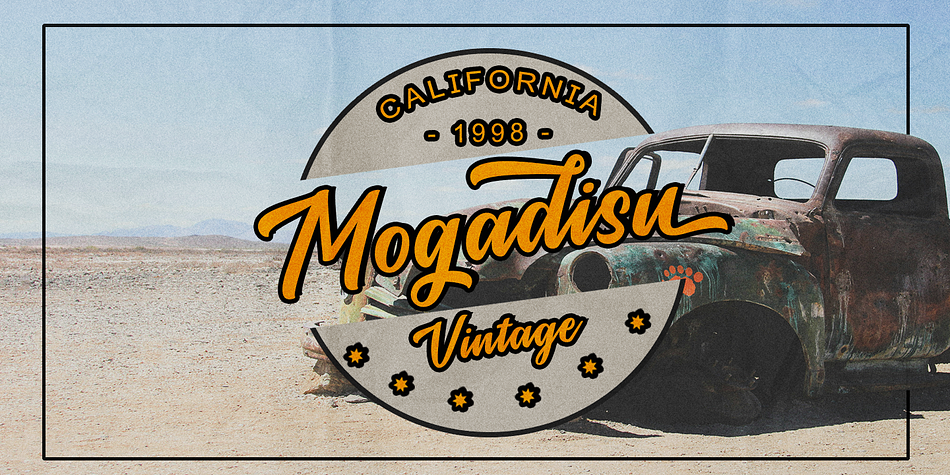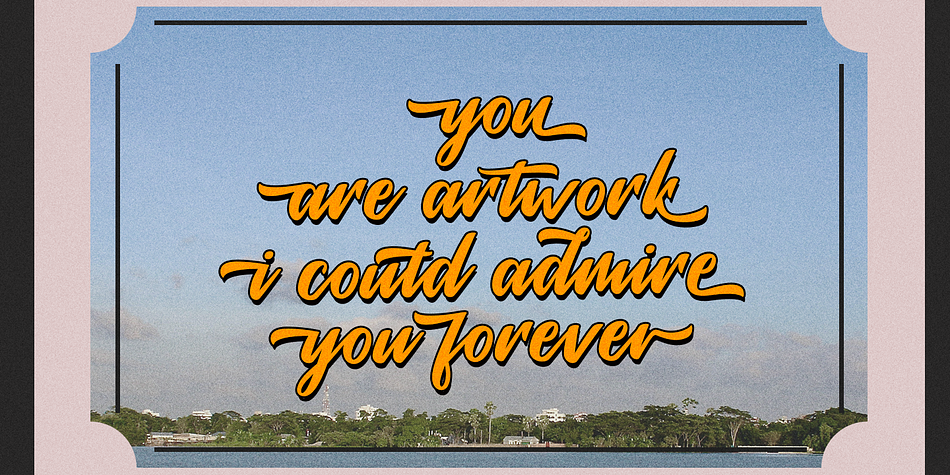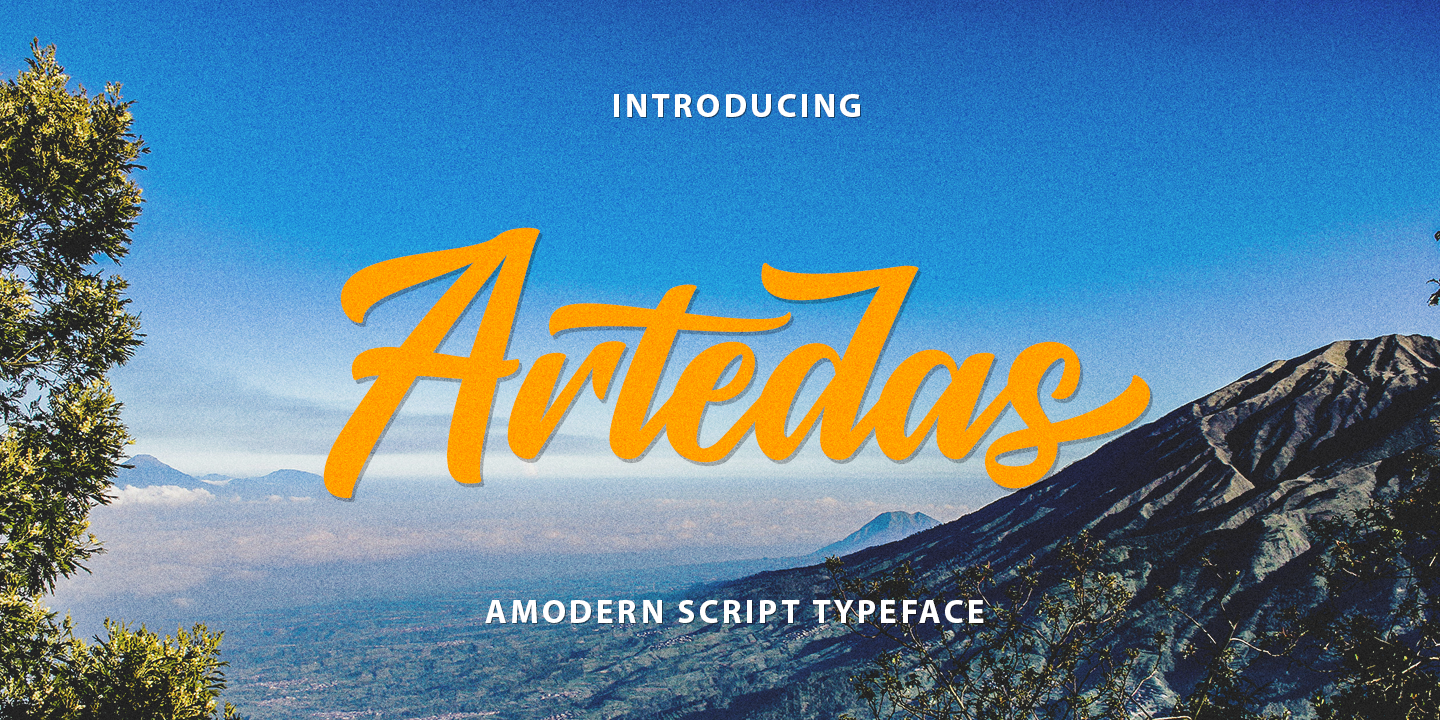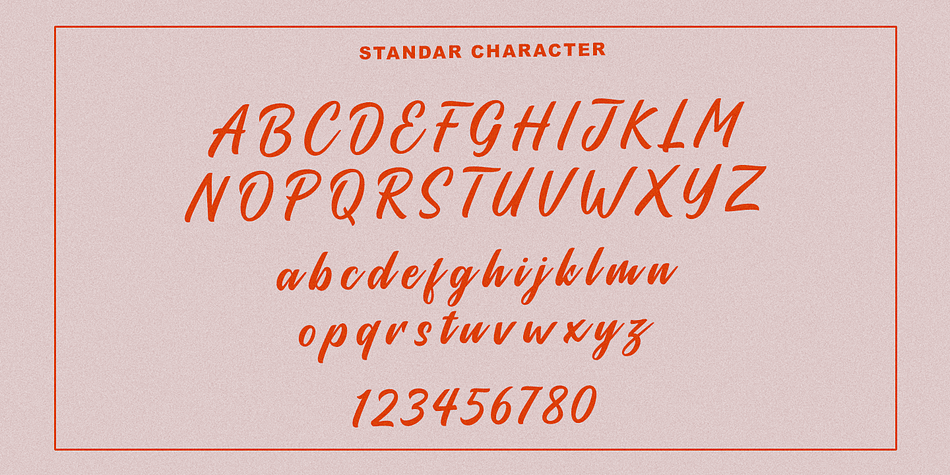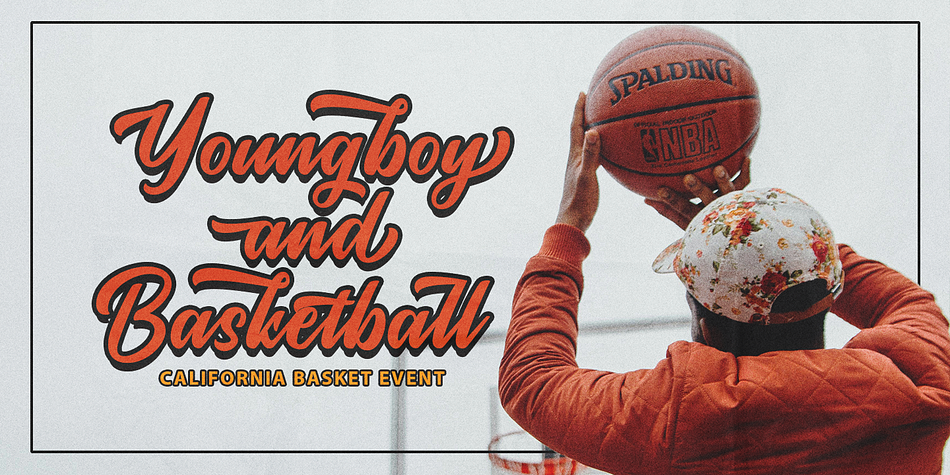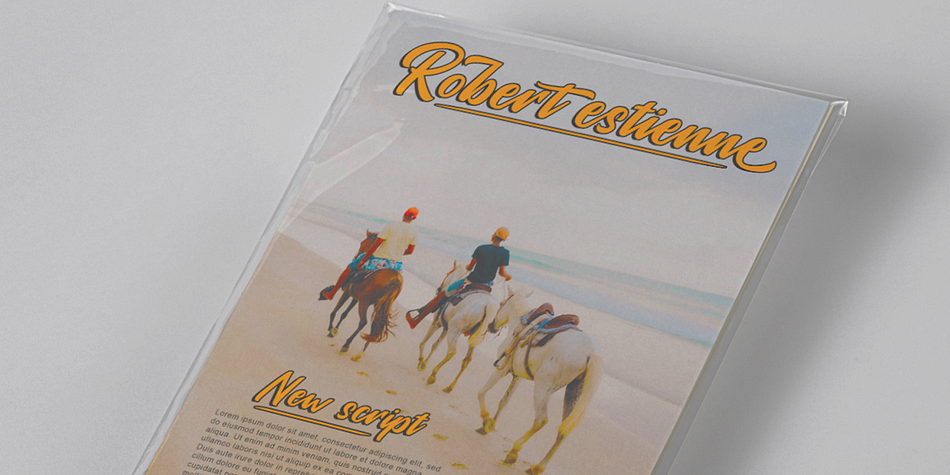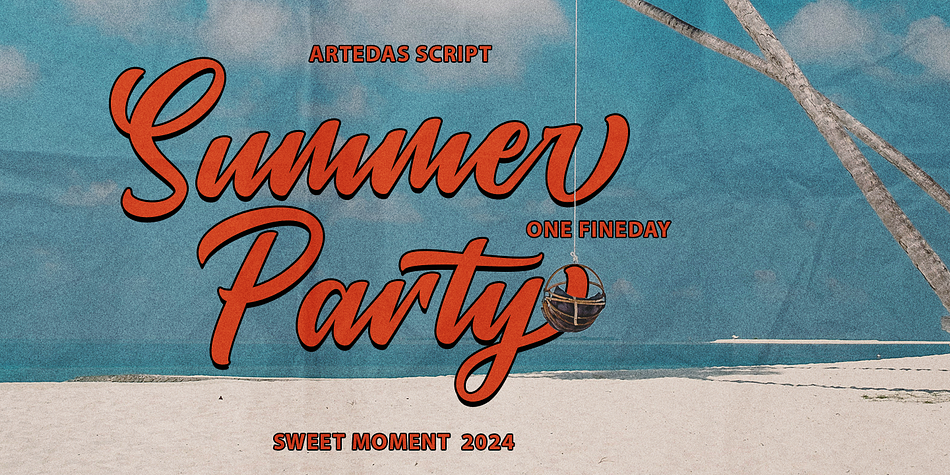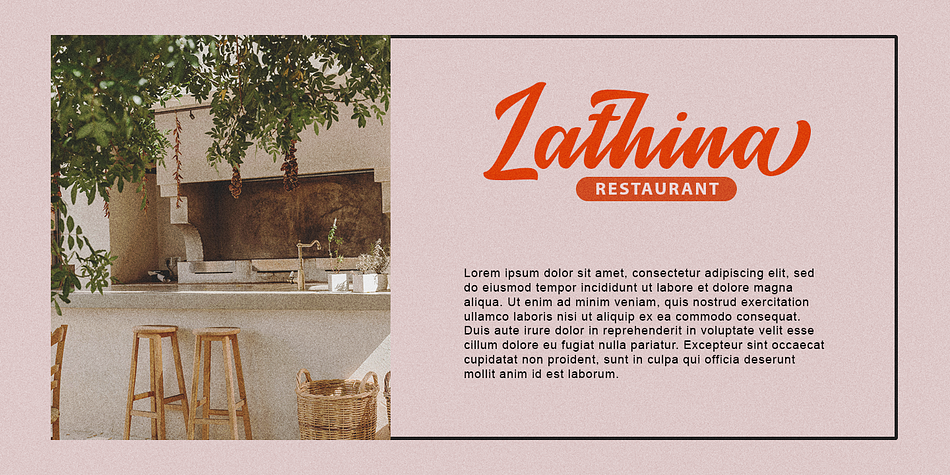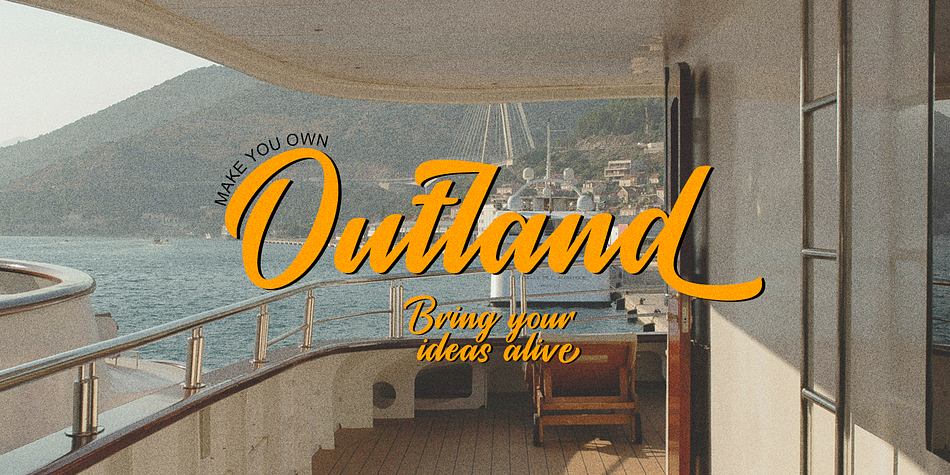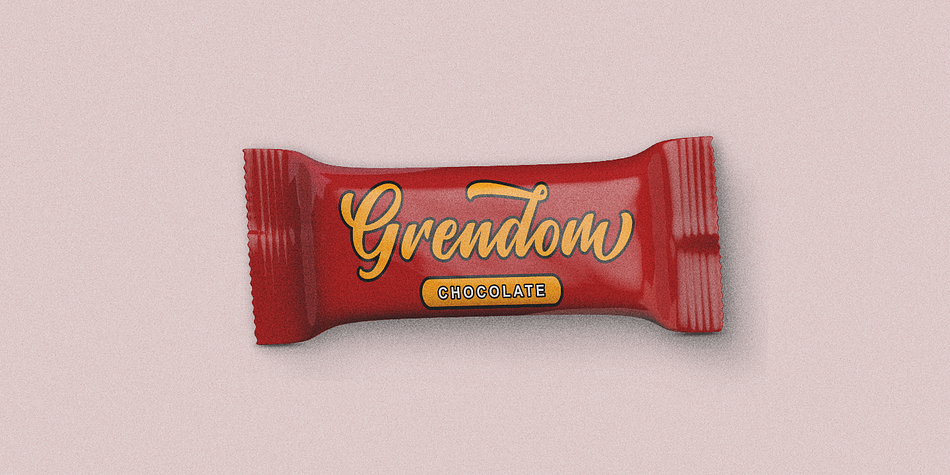
Artedas
Artedas is a brush script font family published by Gatype.
Artedas is a modern font that combines elegant and contemporary elements. With smooth lines and sleek design, this font is perfect for use in various graphic design projects, from logos and posters to social media.
Artedas offers high clarity and readability, making it the perfect choice for text that wants to stand out. Its minimalist style provides a professional and clean touch, while aesthetic details ensure the font remains attractive and engaging.
Artedas is the ideal solution for designers looking for a versatile font with a stylish and modern look.